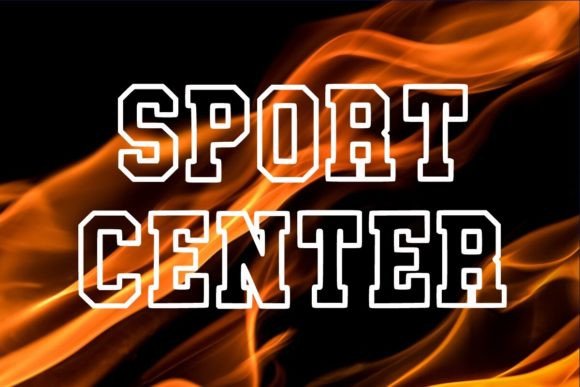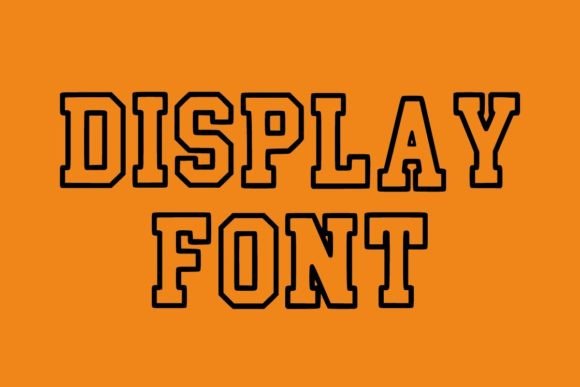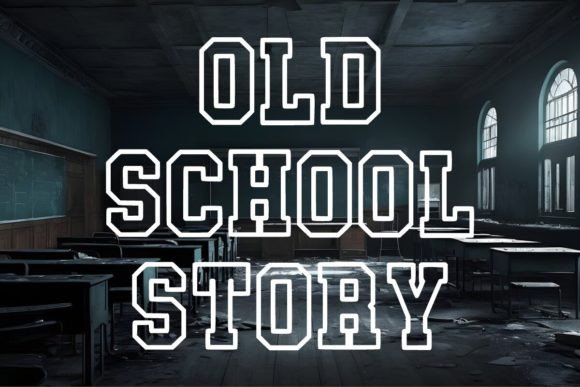
Introduction to School 33 Font
School 33 is a Line and bold display sport font.
It is suitable for any winter and holiday branding project, product packaging, invitation, quote, t-shirt, label, poster, text effect, label, and logo that you wish to develop .
School 33 Font offers exceptional quality and versatility, making it a valuable addition to your design toolkit. Whether you’re creating for personal projects or commercial use, School 33 Font delivers professional results.